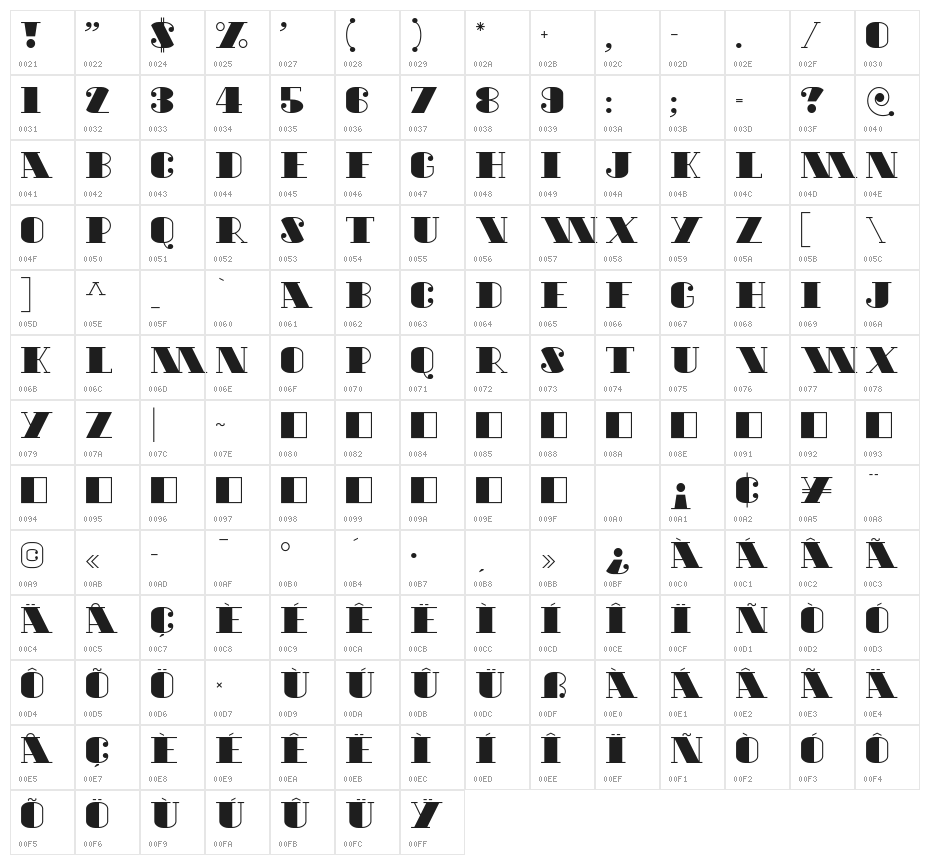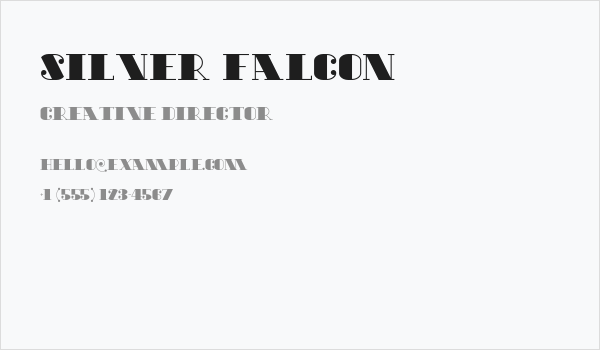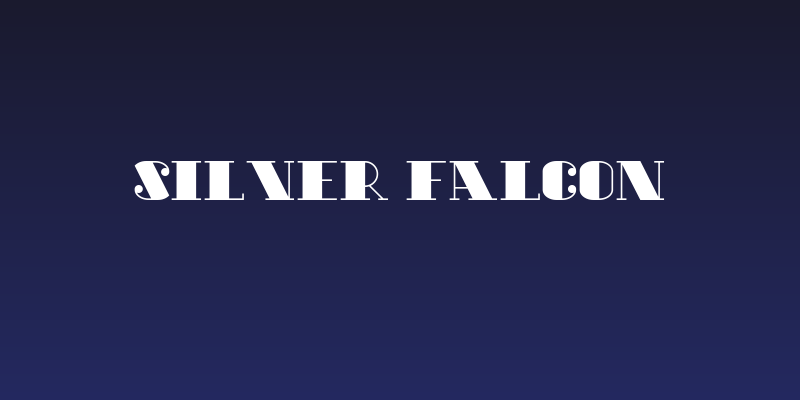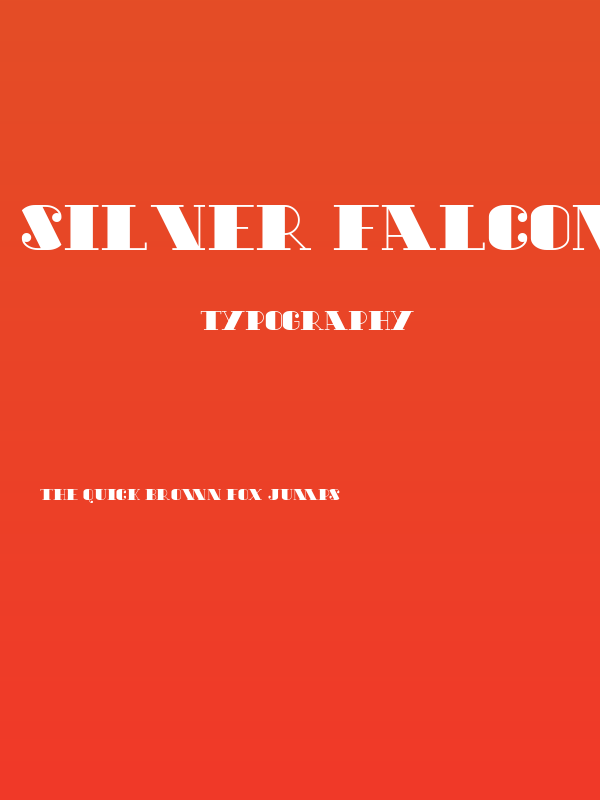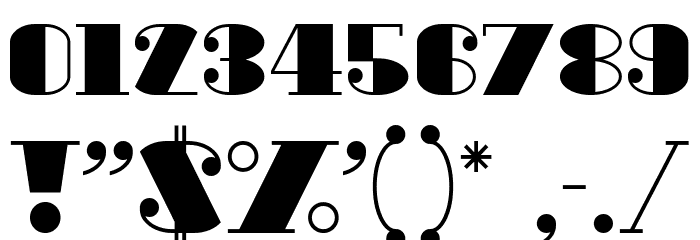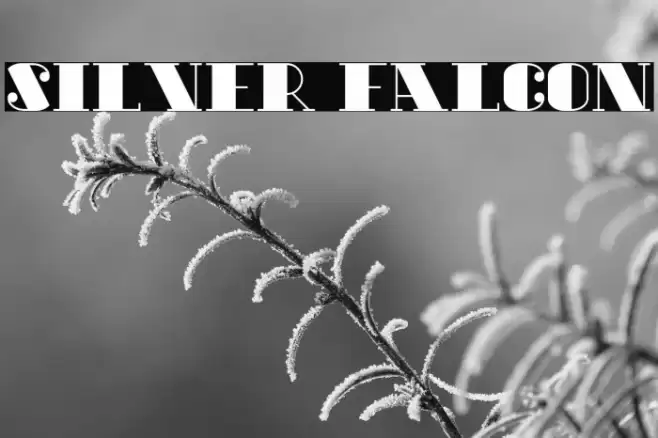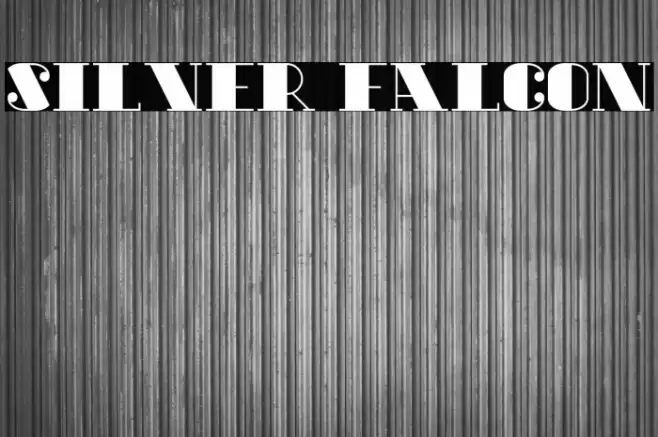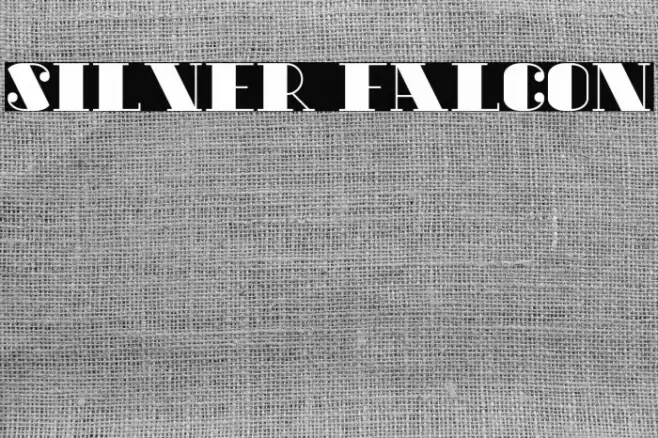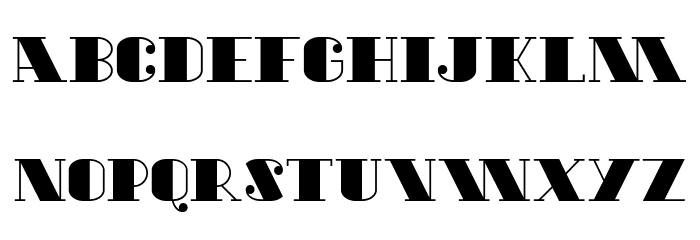
Silver Falcon Font
Silver Falcon Description
This font features a bold and striking design with high contrast between thick and thin strokes. The characters have a unique, decorative flair, incorporating geometric elements and sharp angles. The uppercase letters are particularly distinctive, with some characters featuring unexpected curves and cuts that add to the font's dramatic appearance. The numerals and special characters maintain this bold style, ensuring consistency across all glyphs. This font's design is eye-catching and memorable, making it suitable for projects that require a strong visual impact.